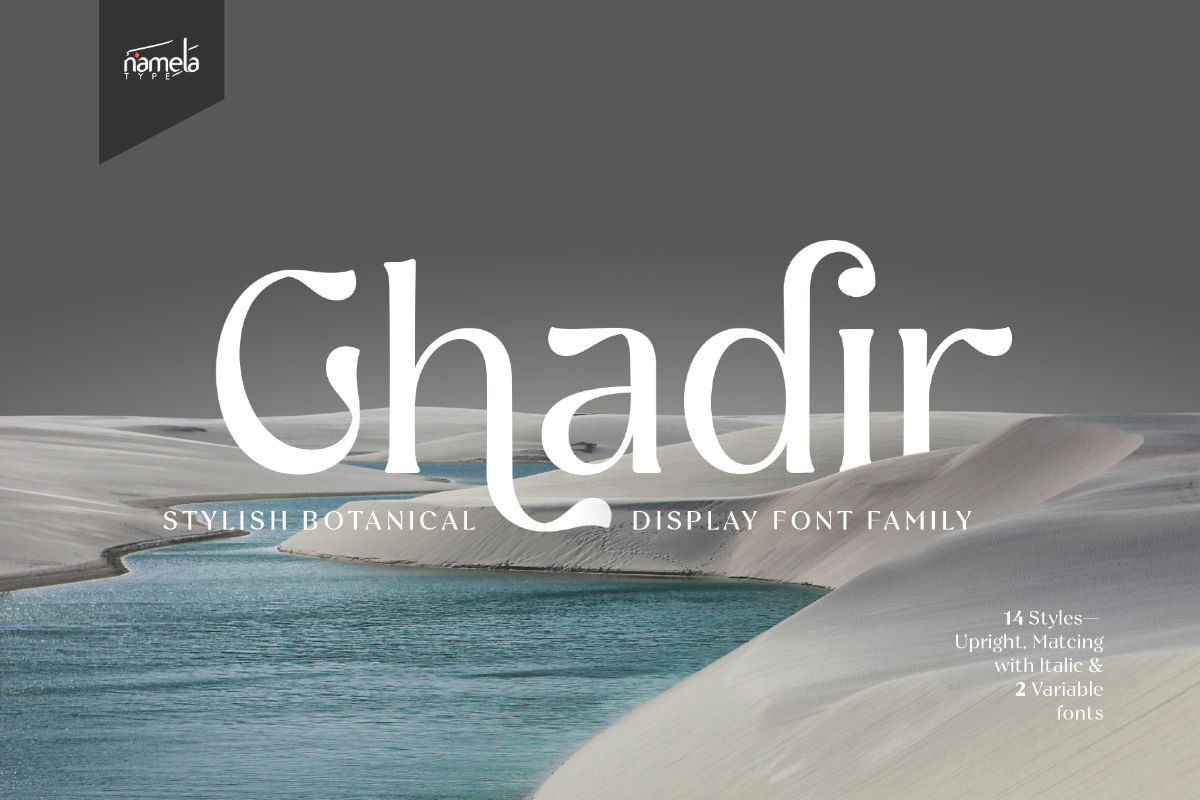
Ghadir Regular
Ghadir Font - A Botanical Display Typeface for Elegant Branding and Social Media Some typefaces are designed to dominate a layout. Others are meant to invite—to create a quiet, refined presence that draws the viewer in. Ghadir belongs firmly in the latter category. Ghadir Botanical display font is crafted for designers who value elegance, subtle expression, and visual harmony. Inspired by nature and shaped with precision, it transforms typography into a central visual element rather than a sup